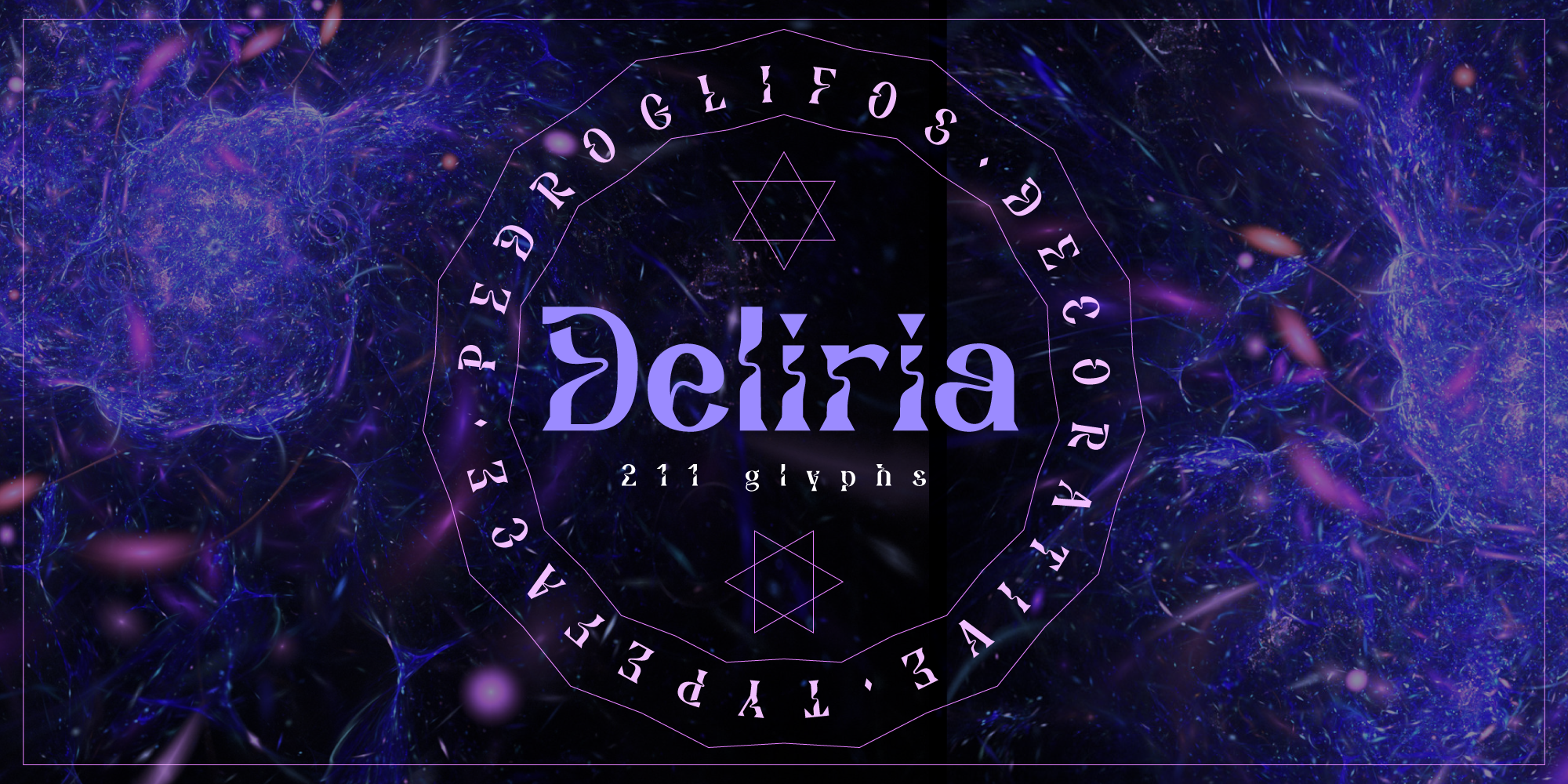
Deliria Font is perfect for artistic exhibitions, creative agencies, avant-garde fashion brands, experimental music albums, contemporary art galleries, surreal photography projects, alternative theater posters, abstract design concepts, innovative tech startups, and boundary-pushing marketing campaigns. This expressive typeface excels in projects that require artistic freedom, creative rebellion, and unconventional visual impact.
What makes Deliria Font exciting is its bold exploration of typographic boundaries through deliberately unconventional letterforms that challenge traditional design rules. The font features dynamic distortions, unexpected angles, and artistic irregularities that create visual excitement and emotional intensity. Its rebellious spirit captures the essence of creative delirium while maintaining functional readability, making it perfect for brands that want to communicate innovation, artistic vision, and fearless creativity.
Deliria Font comes in diverse font families including Regular, Bold, Light, Italic, Distorted, and Abstract variants. Each family member maintains the distinctive artistic character while offering different levels of experimental intensity and stylistic approaches to accommodate various creative design needs and artistic expressions.
This premium artistic typeface represents an exceptional choice for designers working in creative industries, experimental media, and cutting-edge branding sectors. Deliria Font Free Download provides outstanding value for artists, creative directors, and agencies specializing in unconventional visual communication. The font's artistic authenticity makes it particularly suitable for gallery exhibitions, experimental publications, creative portfolios, and innovative brand identities.
Whether you're developing brand identity for creative collectives, designing promotional materials for art festivals, or creating experimental content for avant-garde projects, Deliria Font delivers the artistic edge and visual innovation that groundbreaking creative work demands.